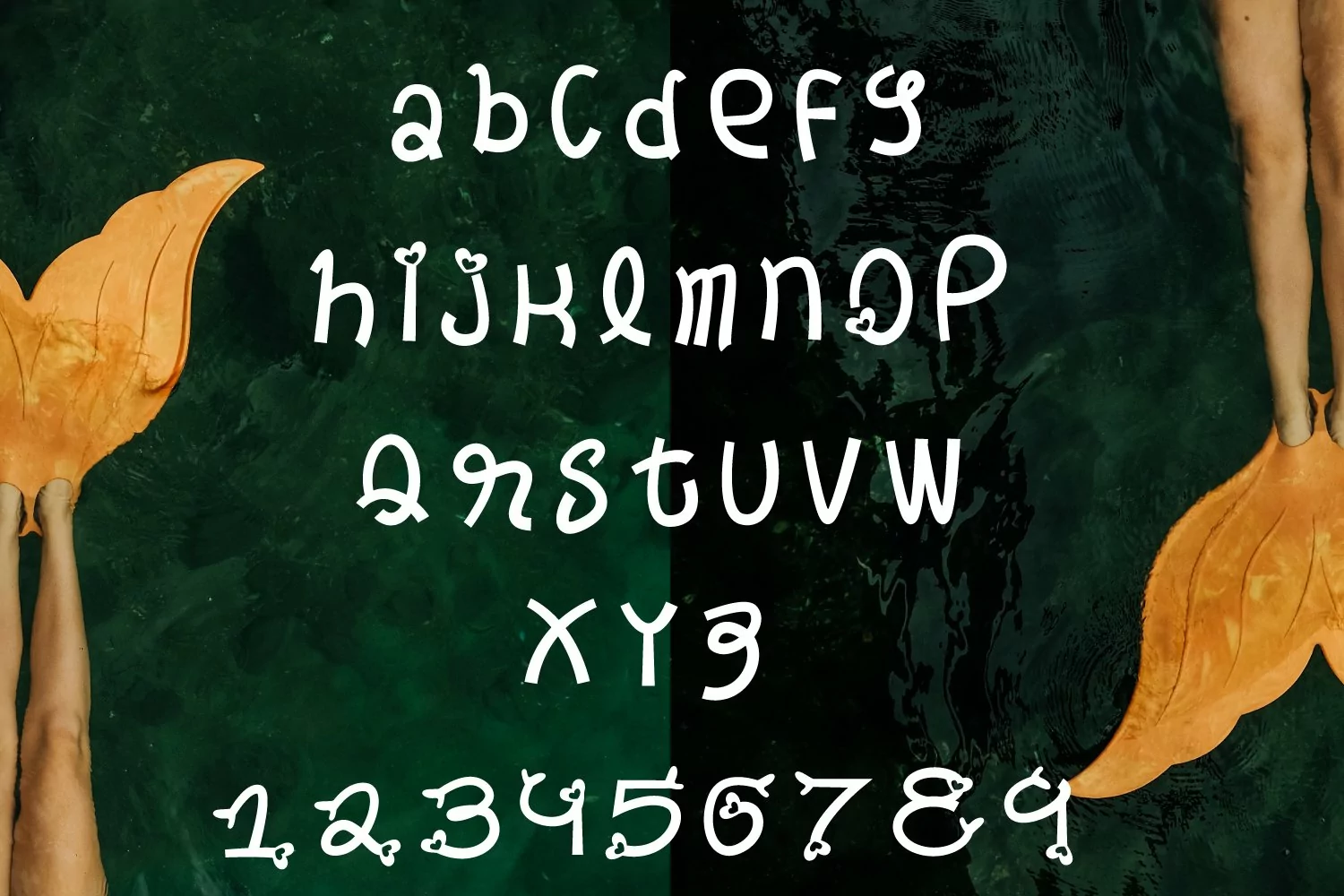
Sweet Mermaid - Handcrafted Cute & Fun Font
Presenting Sweet Mermaid - Handcrafted Cute & Fun Font specially designer for you. If you love mermaid or you are Big fan of water typo then this is specially made for you. It contains all the caps and lower case letters along with all the numbers to create the perfect design you always wanted to. You can also check the preview of presentation above and letters also displayed above.
1- Fun and Cute Font
3- For projects of Fun and Other